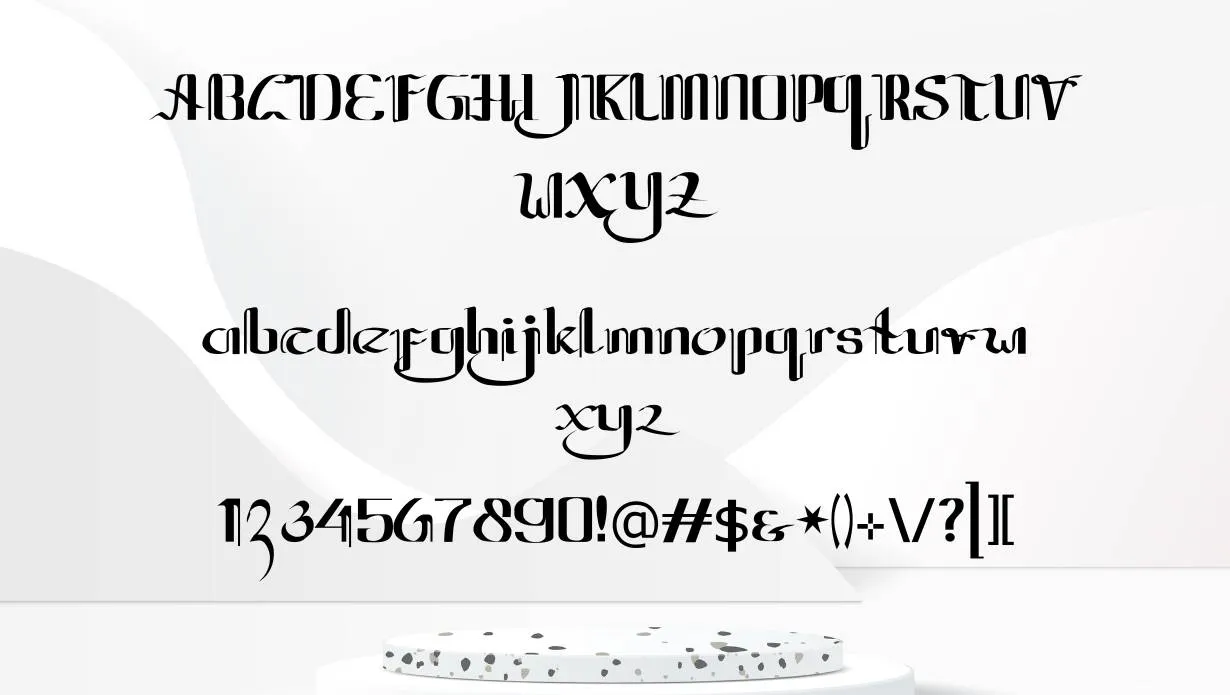
Jawa Palsu Font emanates a mysterious and exotic aura. Its intricate and foreign-inspired letters add an air of intrigue and uniqueness to any text.
This font is often seen in designs seeking an enigmatic or culturally rich appearance, giving a sense of mystique and curiosity. Its unique and captivating appearance makes the text look exotic and alluring, perfect for creating an intriguing design ambiance.